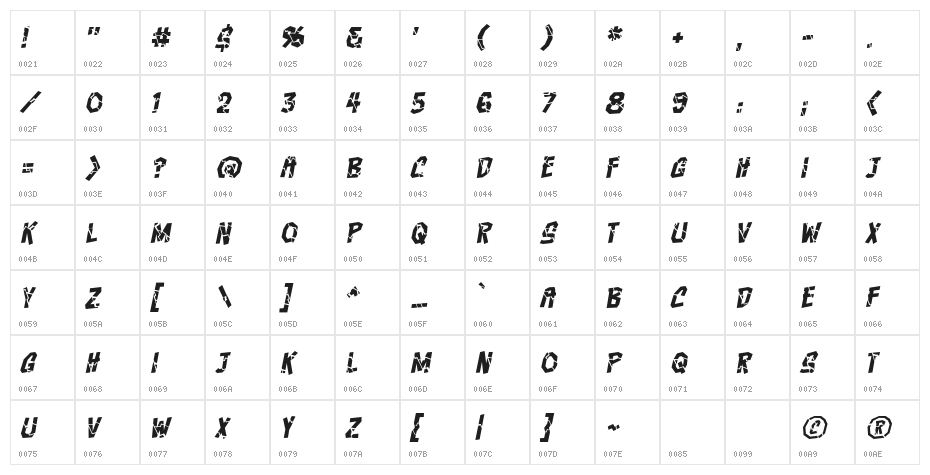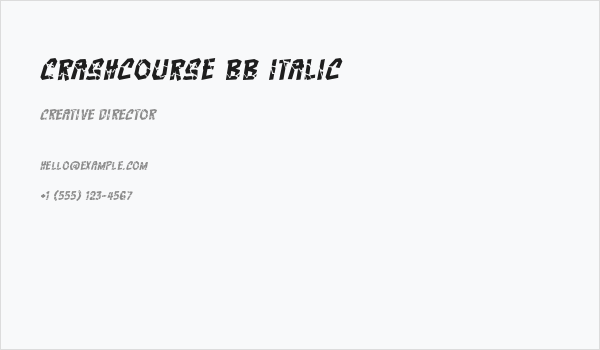
Crashcourse BB Italic Font
Crashcourse BB Italic Description
This font features a bold and dynamic design with a shattered, fragmented appearance. The characters are heavily stylized, giving an impression of movement and energy. Each letter is composed of angular, broken segments that create a sense of chaos and intensity. The italic slant adds to the dynamic feel, making it suitable for attention-grabbing headlines or artistic projects. The uppercase and lowercase letters maintain a consistent style, while the numbers and special characters follow the same fragmented pattern, ensuring a cohesive look across all elements.
| Overall Style | Modern, Edgy |
| Proposed Projects | Ideal for edgy branding, music album covers, posters, and any project requiring a bold statement. |